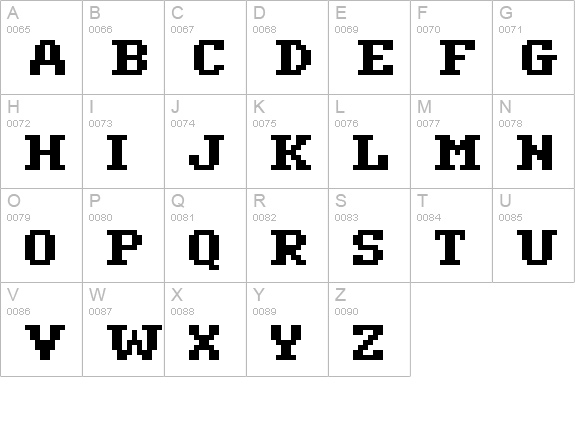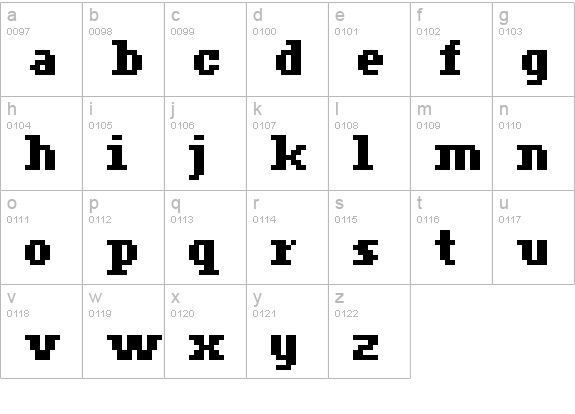
Ceriph 07_65 is a versatile and modern font that exudes elegance and sophistication. With its sleek and stylish design, this font is perfect for a wide range of design projects, from logos to branding materials to print designs. The clean lines and balanced proportions of Ceriph 07_65 make it a standout choice for those looking to make a statement with their typography. This font is not only visually appealing but also highly readable, making it a practical choice for a variety of applications. Whether you're designing a website, creating a poster, or working on a packaging design, Ceriph 07_65 will help your text stand out and make a lasting impression. The best part? Ceriph 07_65 is completely free to download at FontsMarket.com. This means you can start using this stylish font in your projects right away without having to worry about any additional costs. Don't miss out on the opportunity to add Ceriph 07_65 to your font collection and elevate your designs to the next level. Download it now and let your creativity shine!